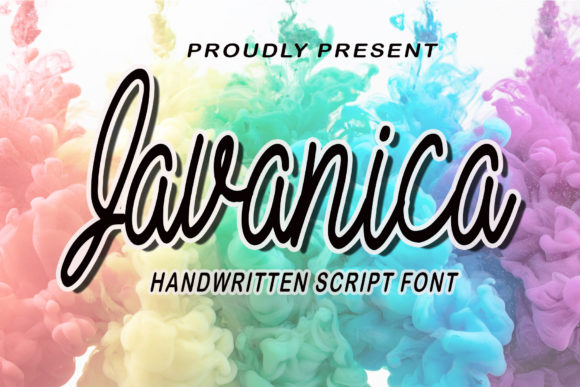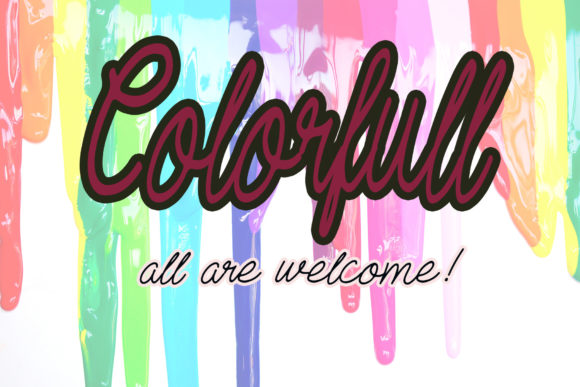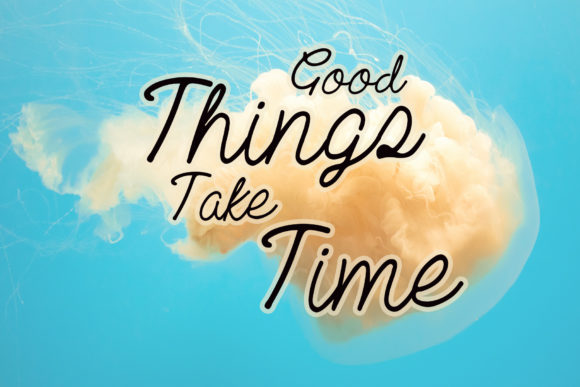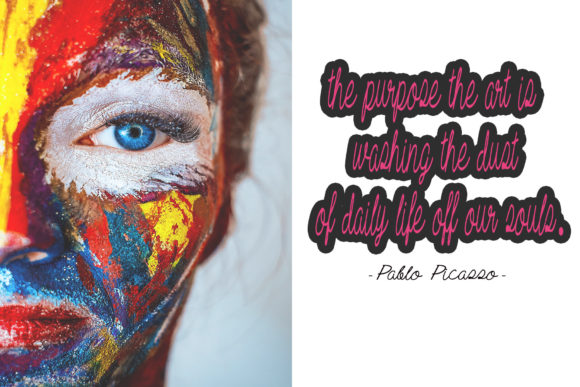
About Javanica Font
Javanica is a well-balanced and flowing script font. Add this ravishing looking font to each of your love letters, wedding invitations or favorite design ideas, and you will be astounded by the outcome.